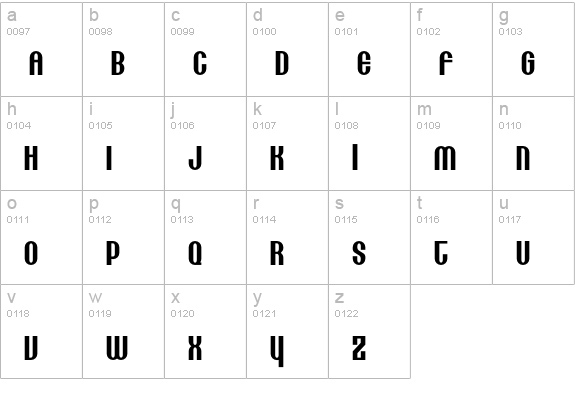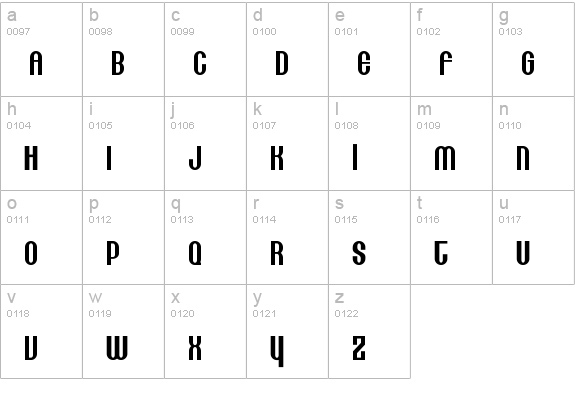
Lithia-BoldSmallCaps is a sophisticated and versatile font that exudes elegance and modernity. Its bold small caps style adds a touch of uniqueness and professionalism to any design project. With its clean lines and sharp angles, Lithia-BoldSmallCaps is perfect for creating eye-catching headlines, logos, and branding materials. The best part? This stunning font is completely free to download at FontsMarket.com. Whether you're a graphic designer looking to add a stylish flair to your work or a business owner in need of a fresh new font for your marketing materials, Lithia-BoldSmallCaps is sure to impress. Don't miss out on this fantastic opportunity to elevate your designs with this exceptional font. Download it now and start creating with Lithia-BoldSmallCaps today!